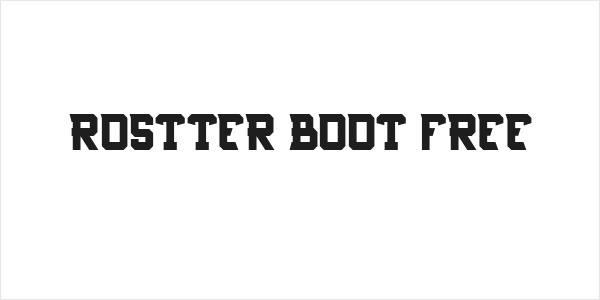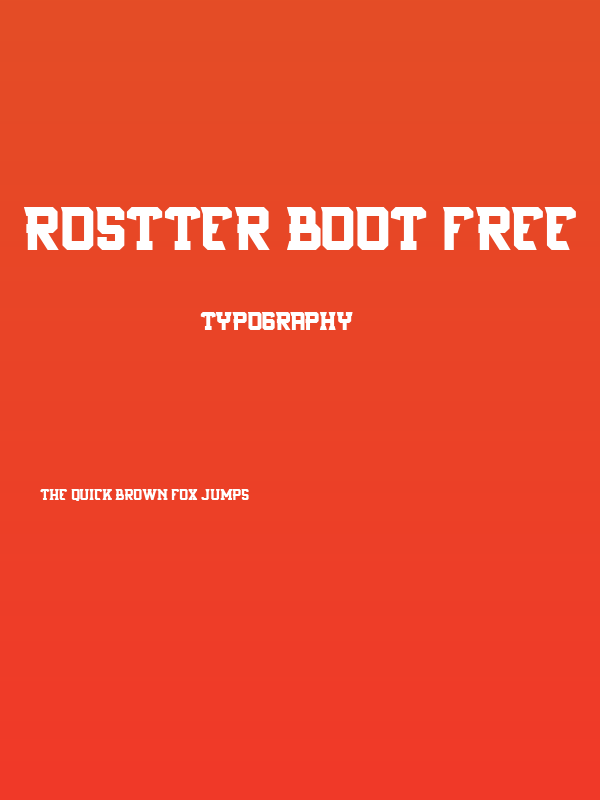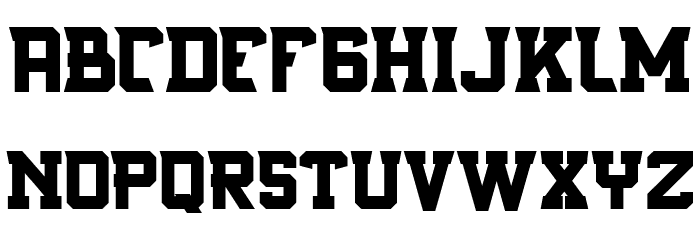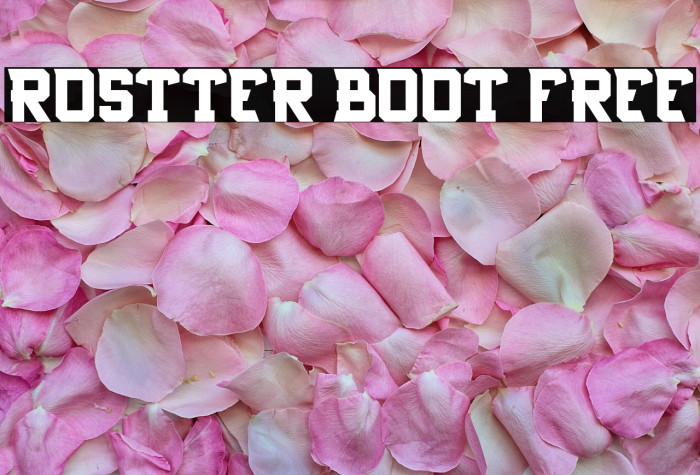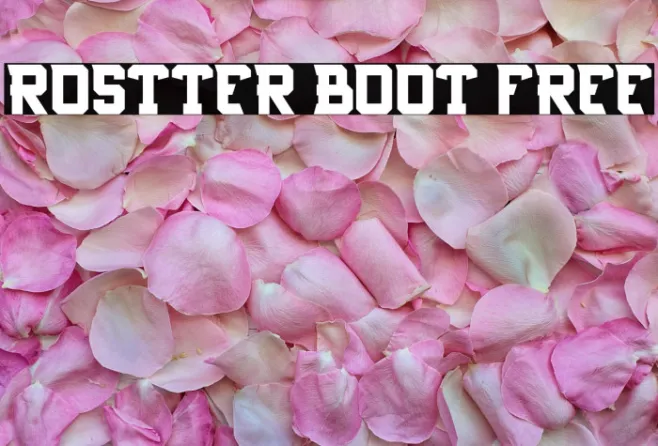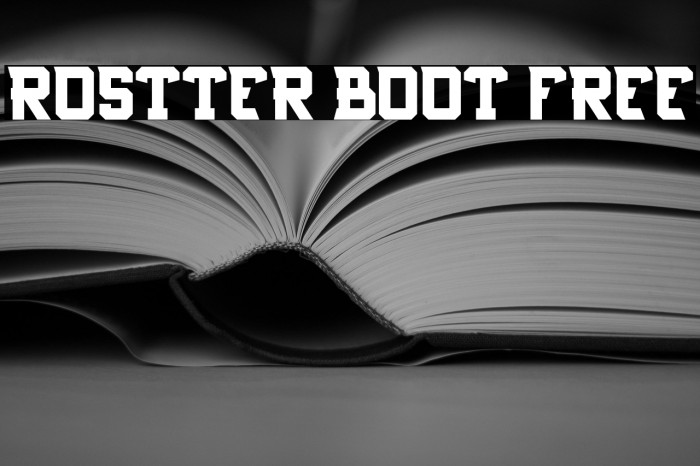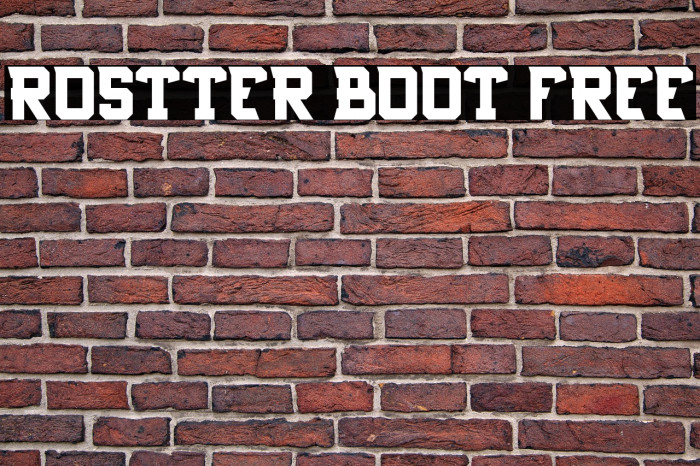
Rostter boot FREE Font
Rostter boot FREE Description
This font features a bold, geometric design with strong, angular lines and a distinct, blocky appearance. The characters are uniformly styled with sharp edges and a consistent weight, giving it a robust and impactful presence. The uppercase letters are particularly striking, with a uniform height and width that create a cohesive look. The font's design is reminiscent of industrial or mechanical themes, making it suitable for projects that require a bold and assertive typeface. The spacing between characters is tight, enhancing the compact and solid feel of the text. This font is ideal for use in headlines, posters, and other display purposes where a strong visual impact is desired.
| Use Case | Headlines, Display, Branding |
| Proposed Projects | Ideal for headlines, posters, branding, and any project requiring a strong visual impact. |